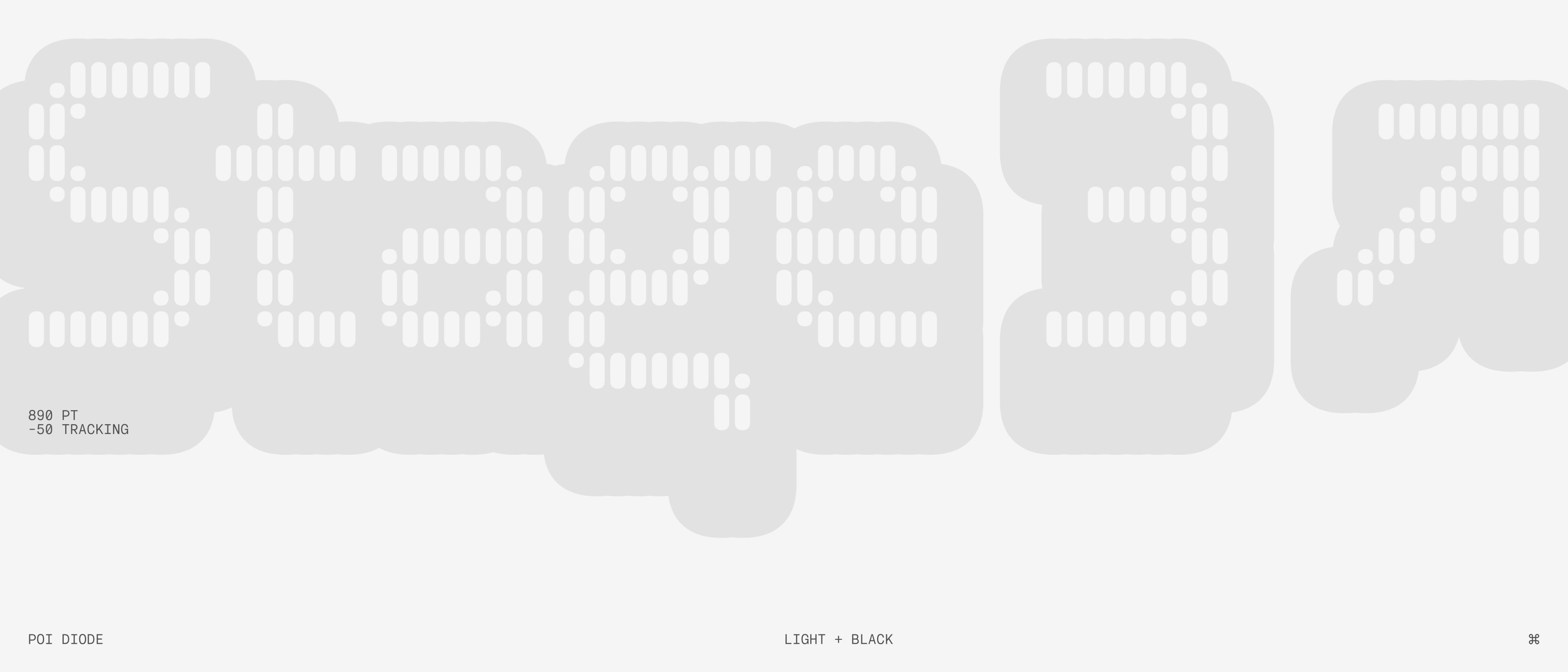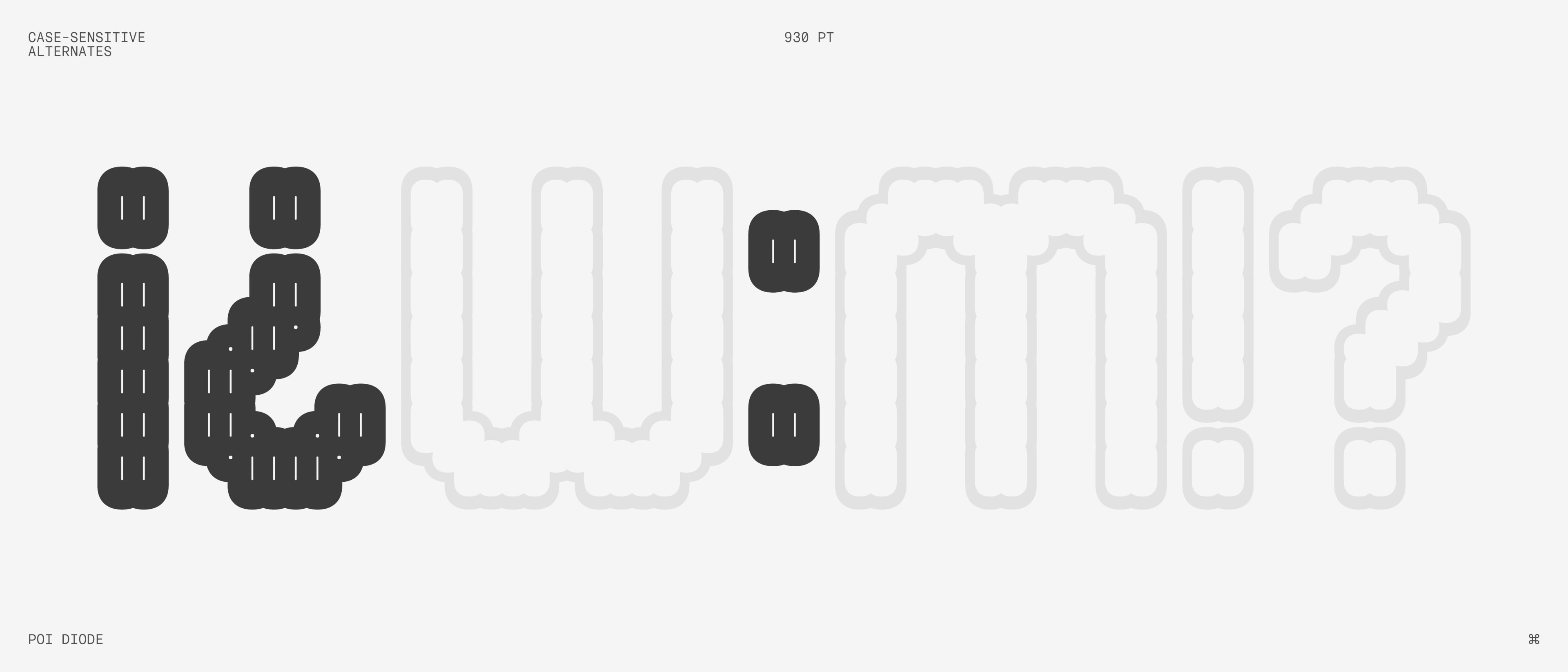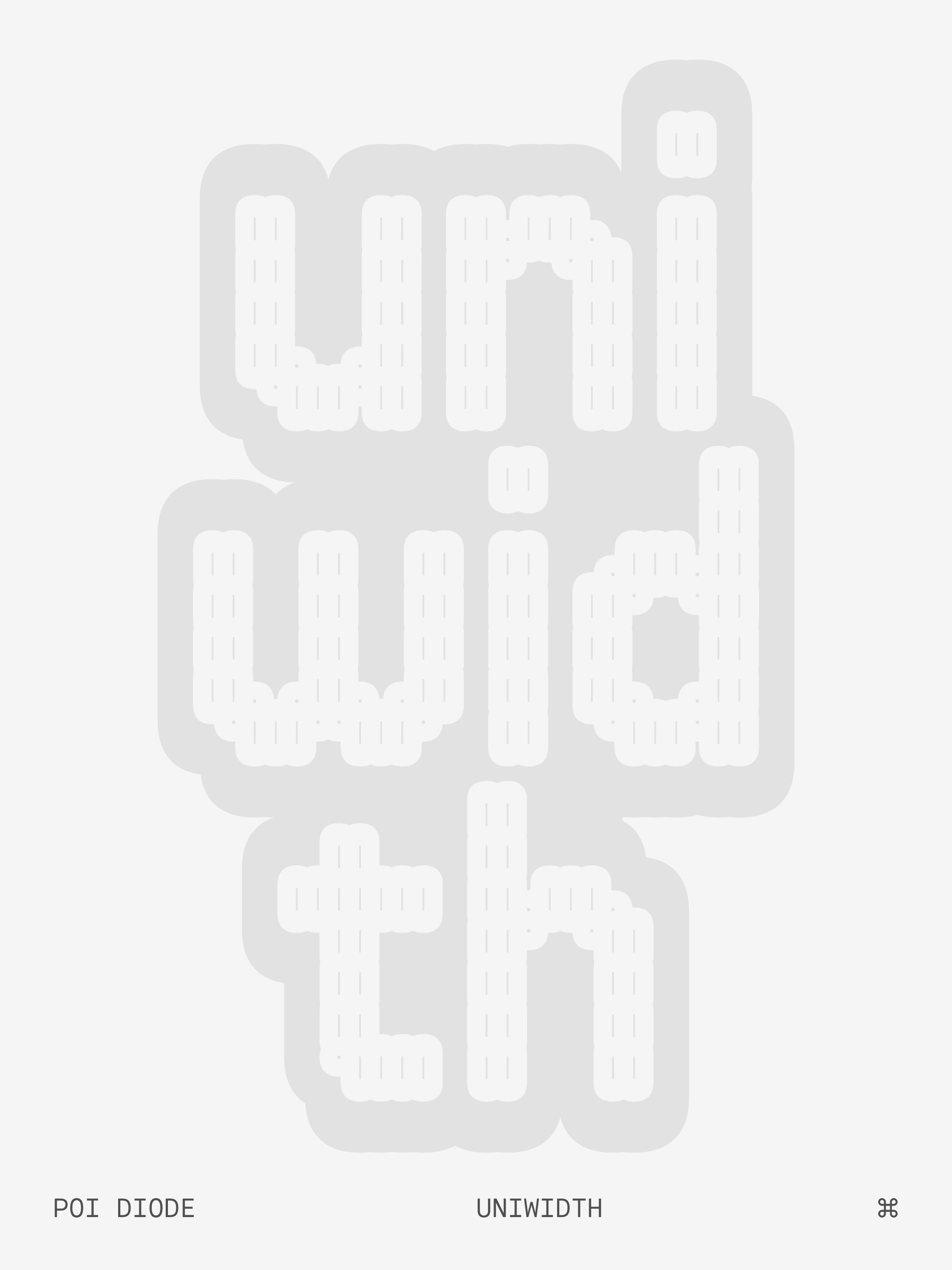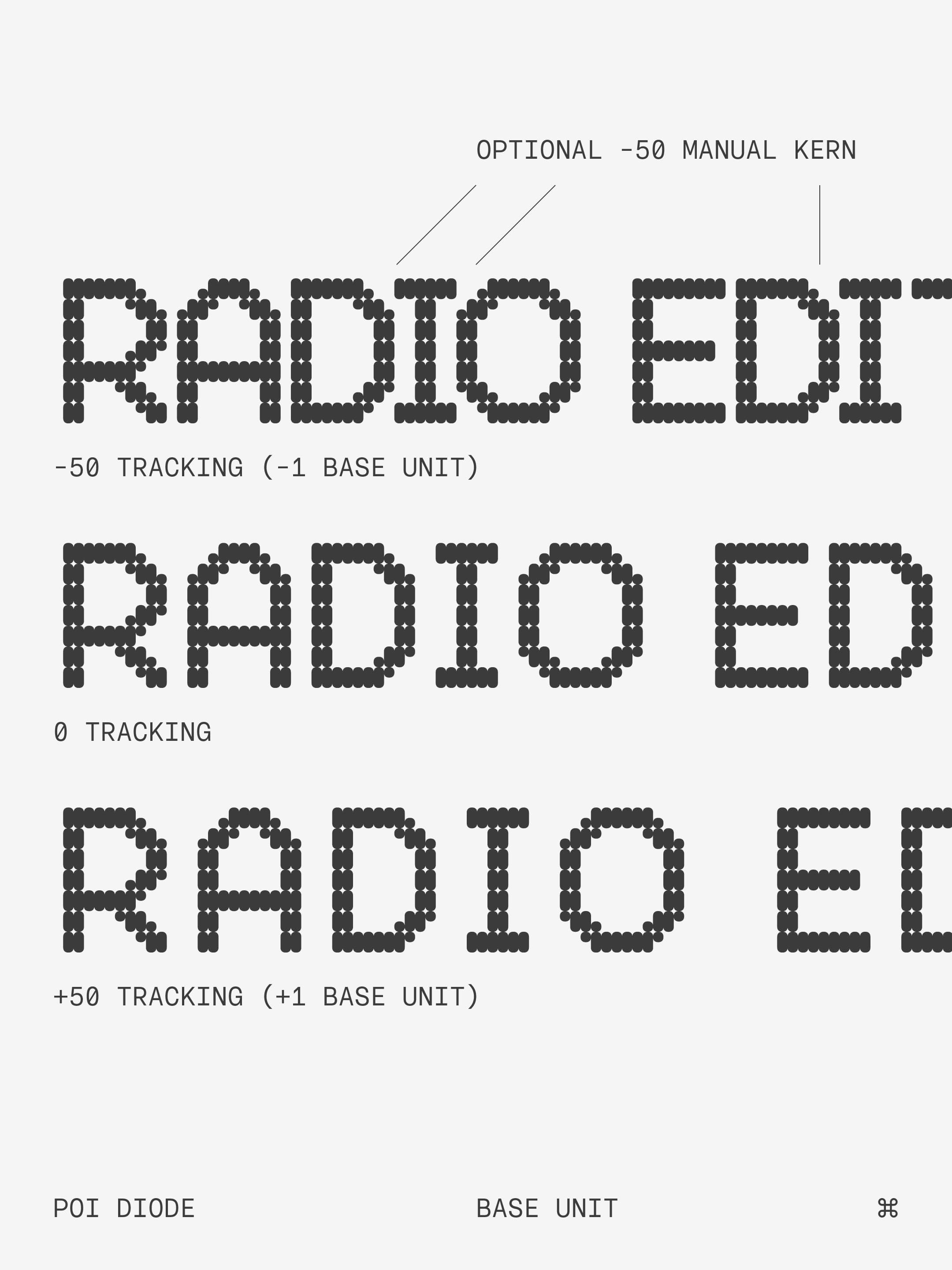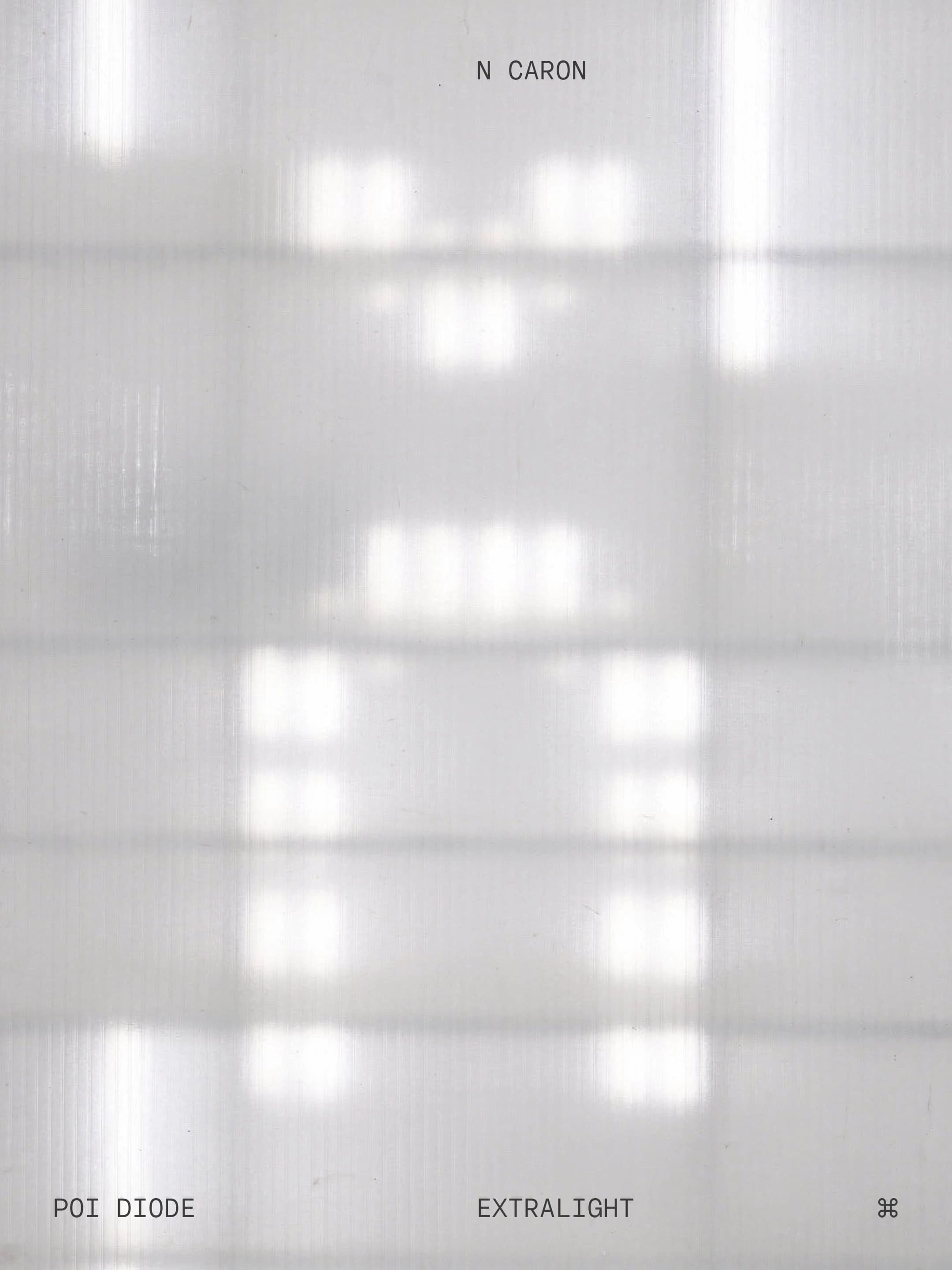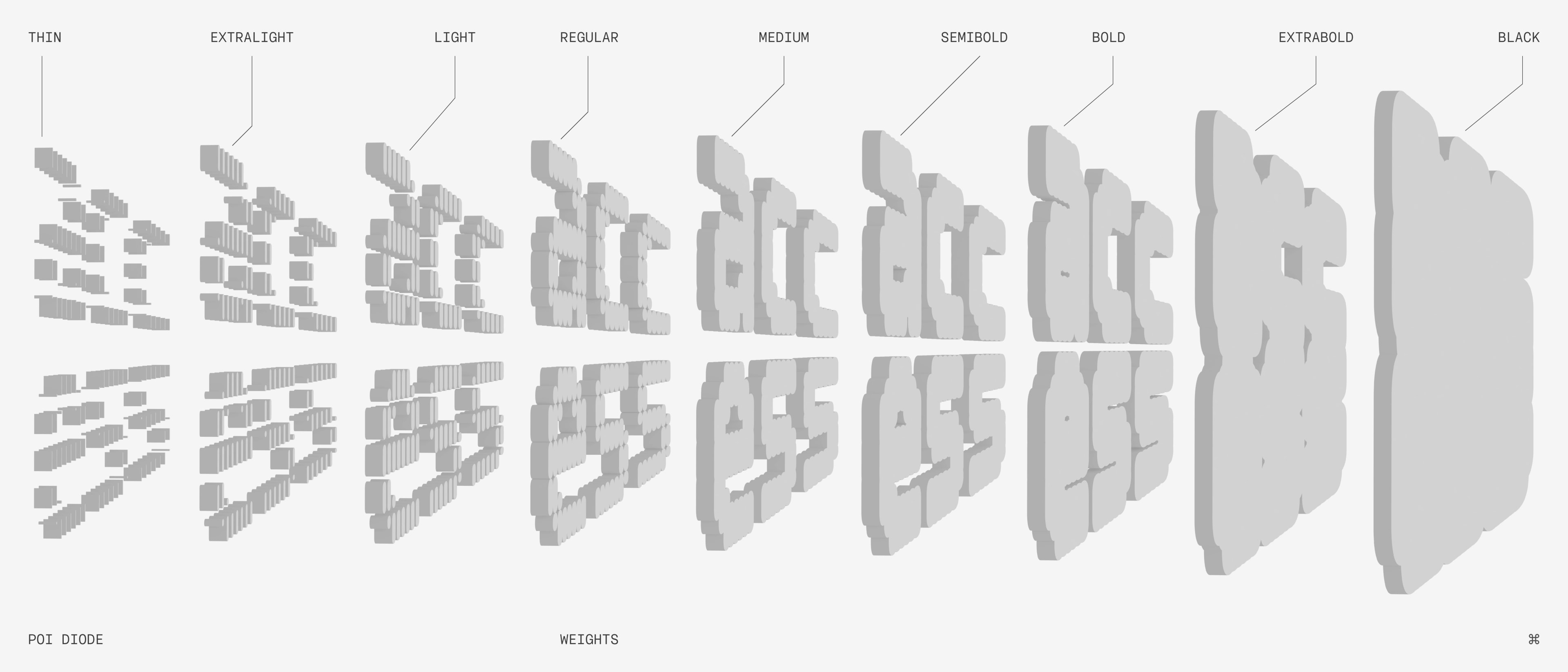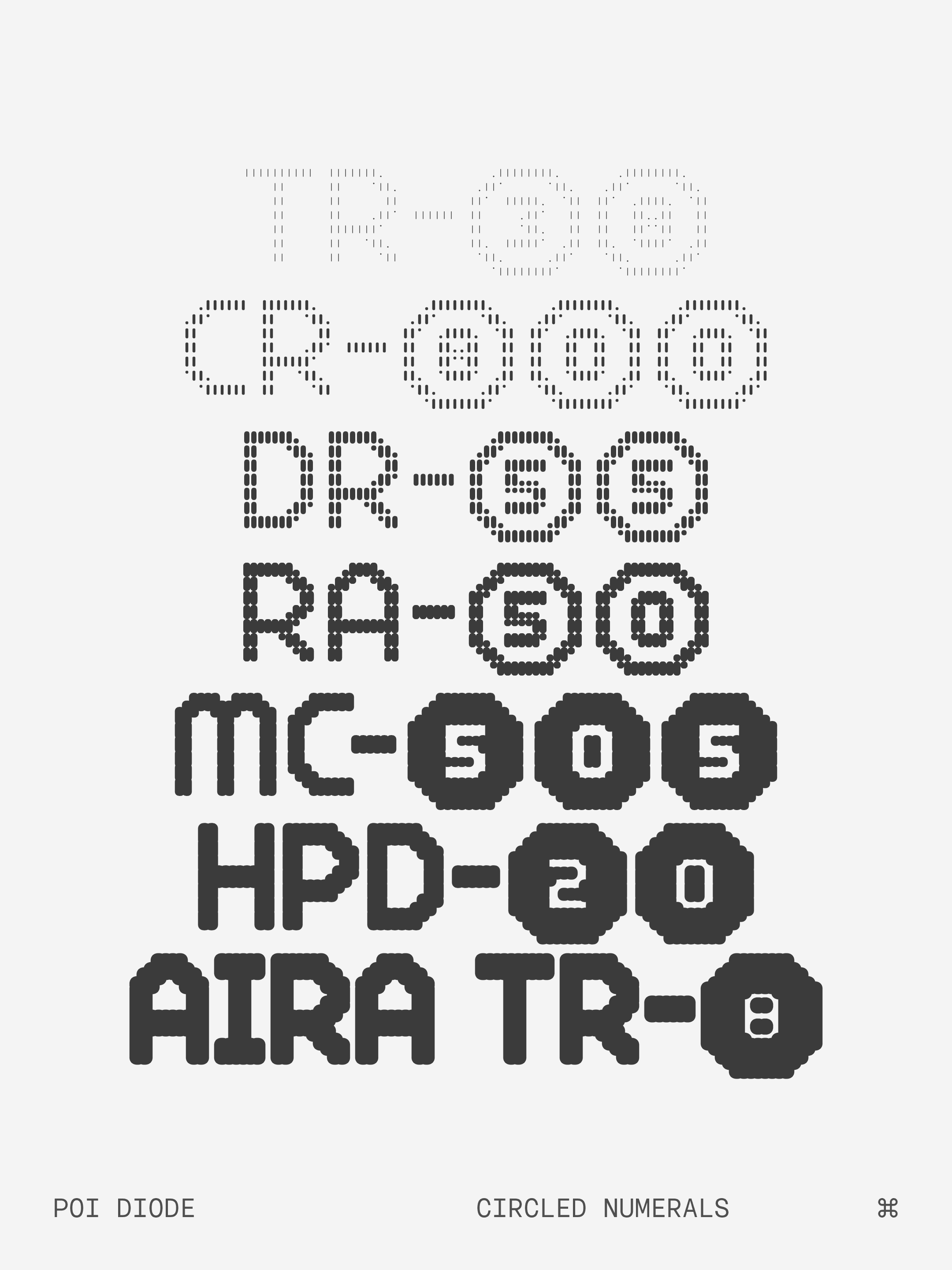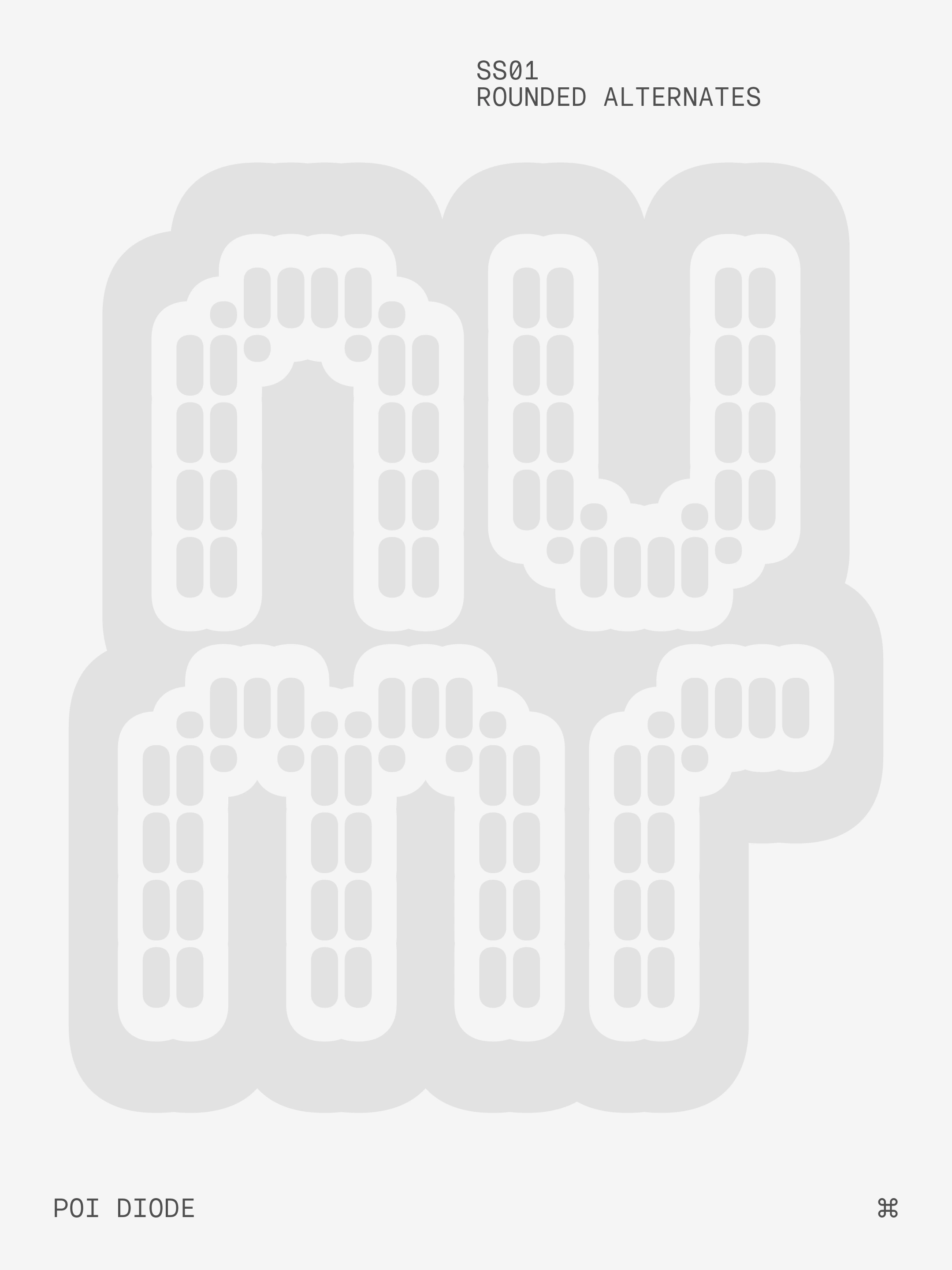
Diode
Comprised of two separate pixel designs working in lockstep, this expressive typeface mirrors the look of low-res LED displays, typically found on public transport. Built with two legibility extremes, each piece can be customized to suit your needs. Experimental at its core, POI Diode excels in large format applications.